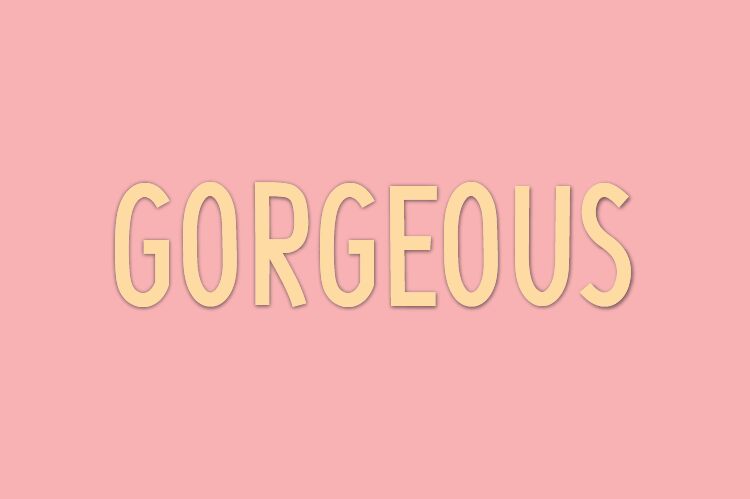
Gorgeous
Gorgeous font by HannaBie Creative Studio is a free cartoon display typeface that stretches tall and narrow, like bold lettering squeezed onto a vintage sign. Its chunky verticals, rounded corners, and slightly wobbly inked edges give it a hand-drawn, high-energy feel—confident without being stiff. The letters stack closely together, creating a solid, in-your-face word shape that grabs attention in an instant.
Using Gorgeous font, your titles and brand words feel loud, fun, and a bit theatrical, making this free font a natural fit for posters, character-driven logos, snack or toy packaging, comic covers, YouTube thumbnails, and bold stickers or T-shirts. It shines at big sizes where its quirky texture can really show. For supporting text, pair it with a clean, simple sans serif and keep the tracking slightly open to let each tall letter breathe.